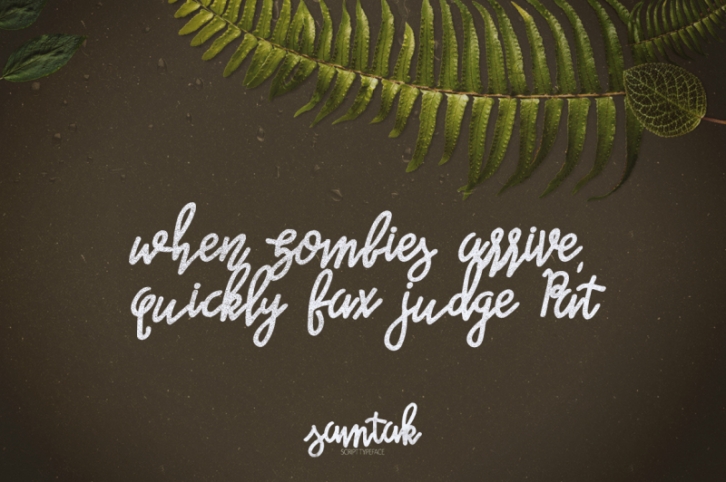
Samtak Script Typeface
Font that feels like it has been written with a marker. The font works perfect on shirts and sweaters or on signs. The font is clear and robust and it will make any text stand out.